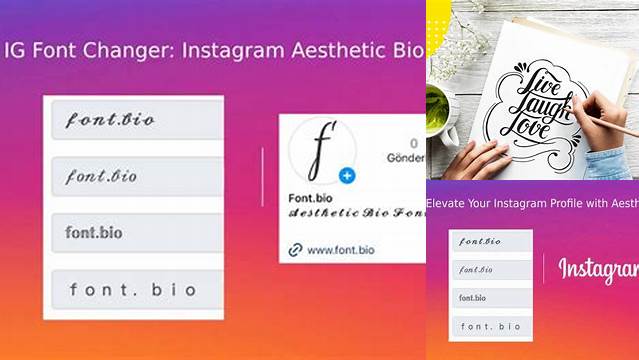
IG Fonts Mod: Amp Up Your Instagram Style
Hey guys! Ever scroll through Instagram and wish your captions and stories could pop just a little bit more? Maybe you're tired of the same old fonts and want something that truly reflects your personality or brand? Well, you've come to the right place! We're diving deep into the world of ig fonts mod, exploring how you can inject some serious style into your Instagram presence. This guide will not only show you how to access a wider variety of fonts but also how to use them effectively to create content that grabs attention and keeps your followers engaged. Forget blending in; it's time to stand out and make your mark on the 'gram!
Why You Need to Amp Up Your Instagram Fonts
In today's visually saturated world, standing out on social media is crucial, especially on platforms like Instagram where aesthetics reign supreme. Your choice of font might seem like a small detail, but it plays a significant role in how your content is perceived. Ig fonts mod gives you the power to go beyond the standard options, allowing you to express your unique style and create a cohesive brand identity. Imagine being able to use a font that perfectly matches the vibe of your photos, or one that adds a touch of playfulness to your stories. This isn't just about making things look pretty; it's about making a statement.
Using a unique font can significantly enhance your brand recognition. Think about some of the biggest brands on Instagram – they all have a distinct visual identity, and their font choices are a key part of that. By using a modded font, you can create a signature look that followers will instantly associate with you. This is especially important for businesses and influencers who are trying to build a strong online presence. Furthermore, different fonts evoke different emotions and feelings. A bold, modern font might convey confidence and innovation, while a handwritten script can create a sense of warmth and authenticity. By carefully selecting your fonts, you can subtly influence the way your audience perceives your content. For instance, if you're promoting a travel blog, a casual, handwritten font might be perfect for conveying a sense of adventure and personal connection. On the other hand, if you're a tech company launching a new product, a sleek, sans-serif font might better communicate your brand's modern and sophisticated image. The possibilities are endless, and with ig fonts mod, you have the freedom to experiment and find the perfect font to match your message.
Diving into the World of Ig Fonts Mod
So, how exactly do you get your hands on these fancy fonts? That's where ig fonts mod comes in! Now, before we dive into the nitty-gritty, it's important to understand what a "mod" actually is. In the simplest terms, it's a modification to the original Instagram app that unlocks additional features, in this case, a wider selection of fonts. This can be achieved through various methods, including using third-party apps or websites that generate stylized text, or by installing modified versions of the Instagram app itself. There are various ways to mod your Instagram fonts, each with its own set of pros and cons. One of the most popular methods involves using online font generators. These websites or apps allow you to type your text and then choose from a variety of different fonts. You can then copy and paste the stylized text into your Instagram captions, bios, or stories. This method is generally very user-friendly and doesn't require you to download any potentially risky software. However, it can be a bit tedious if you need to use different fonts frequently, as you'll have to switch back and forth between the font generator and the Instagram app.
Another approach is to use third-party apps specifically designed for font customization on Instagram. These apps often offer a wider range of fonts and additional features, such as the ability to create custom font styles or save your favorite fonts for future use. Some of these apps also integrate directly with Instagram, making it easier to apply your chosen fonts to your posts. However, it's crucial to exercise caution when using third-party apps, as some may pose security risks or violate Instagram's terms of service. Always download apps from reputable sources and read reviews before installing anything. A more advanced method involves installing a modified version of the Instagram app itself. These modded apps often come with a built-in font library, allowing you to directly select and use different fonts within the Instagram interface. This can be the most convenient option for users who want seamless font integration, but it also carries the highest risk. Modded apps are not officially endorsed by Instagram and may contain malware or compromise your account security. Additionally, using a modded app violates Instagram's terms of service and could result in your account being banned. Therefore, it's essential to weigh the risks and benefits carefully before opting for this method.
Step-by-Step Guide to Level Up Your Font Game
Okay, let's get practical! Here's a step-by-step guide to using ig fonts mod to spice up your Instagram presence. We'll focus on the safest and most user-friendly method: using online font generators. This way, you can experiment with different fonts without risking your account security. First, you'll need to find a reliable online font generator. There are tons of options out there, so do a quick search for "Instagram font generator" to find one that suits your needs. Many of these generators are free to use and offer a wide variety of fonts. Once you've found a generator, simply type your text into the provided field. The generator will then display your text in various fonts, allowing you to preview how each one looks.
Take your time to browse through the different options and choose a font that matches your style and the message you want to convey. Consider the overall aesthetic of your Instagram feed and choose a font that complements your existing content. Once you've found the perfect font, simply copy the stylized text. Most generators will have a convenient "copy" button that makes this process easy. Next, head over to Instagram and paste the text into your caption, bio, or story. You can use the stylized text just like regular text, adding emojis, hashtags, and other elements as needed. Experiment with different fonts for different types of content. For example, you might use a playful font for your stories and a more elegant font for your captions. Don't be afraid to mix and match fonts to create a unique and eye-catching look. Remember, consistency is key to building a strong brand identity. If you're using a specific font for your captions, try to stick with it across all your posts. This will help your followers recognize your content and associate it with your brand.
Pro Tips for Font Mastery
Now that you know the basics of ig fonts mod, let's talk about some pro tips to help you truly master the art of typography on Instagram. First and foremost, less is often more. While it's tempting to go wild and use a different font for every word, doing so can quickly become overwhelming and make your content look cluttered. Instead, aim for a cohesive and visually appealing look by limiting yourself to a maximum of two or three fonts per post or story. Choose one font for your headings or titles and another for your body text. This will create a clear visual hierarchy and make your content easier to read.
Another key tip is to consider the legibility of your chosen font. While some fonts may look incredibly stylish, they might not be the most readable, especially on small screens. Avoid fonts that are overly decorative or have intricate details that can get lost. Opt for fonts that are clear, concise, and easy to read at a glance. Think about the overall tone and message of your content when choosing your fonts. A playful, handwritten font might be perfect for a casual post about your weekend adventures, but it wouldn't be appropriate for a serious announcement or a professional post. Choose fonts that align with your brand's personality and the message you're trying to convey. For instance, a sleek, modern font might be ideal for a tech company, while a classic serif font could be a good choice for a luxury brand.
Pay attention to the spacing and kerning of your text. Kerning refers to the space between individual letters, while spacing refers to the overall space between words and lines. Adjusting these elements can significantly impact the readability and visual appeal of your text. Make sure the letters aren't too close together or too far apart, and ensure there's enough white space around your text to prevent it from feeling cramped. Finally, don't be afraid to experiment and have fun! Ig fonts mod is all about expressing your creativity and finding your unique style. Try out different fonts, mix and match them, and see what works best for you. The most important thing is to create content that you're proud of and that resonates with your audience.
In the meantime, ig fonts mod remains a powerful tool for enhancing your Instagram presence and expressing your unique style. By understanding the principles of typography and following the best practices we've discussed, you can create content that grabs attention, builds your brand, and connects with your audience on a deeper level. So go ahead, guys, experiment with different fonts, unleash your creativity, and make your Instagram feed a true reflection of yourself! Remember, the key to success on Instagram is to stand out from the crowd, and using unique fonts is a fantastic way to do just that. Keep exploring, keep learning, and keep pushing the boundaries of what's possible with typography. The future of Instagram fonts is bright, and we can't wait to see what you create! This journey into ig fonts mod is just the beginning. As you continue to experiment and refine your style, you'll discover the incredible power of typography in shaping your online identity. So, embrace the possibilities, have fun, and make your Instagram feed a visual masterpiece!